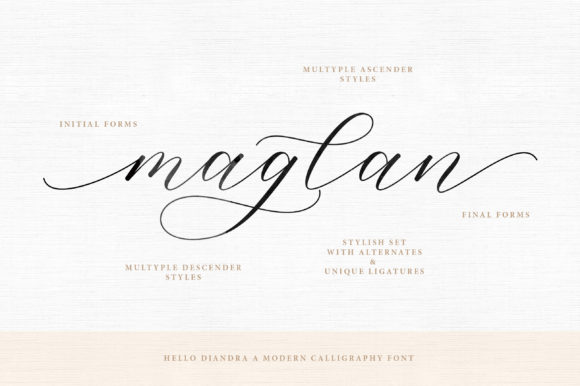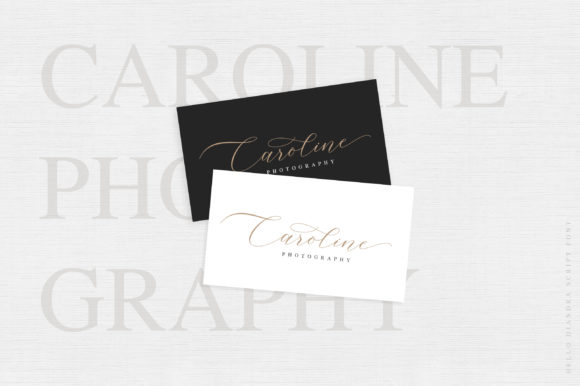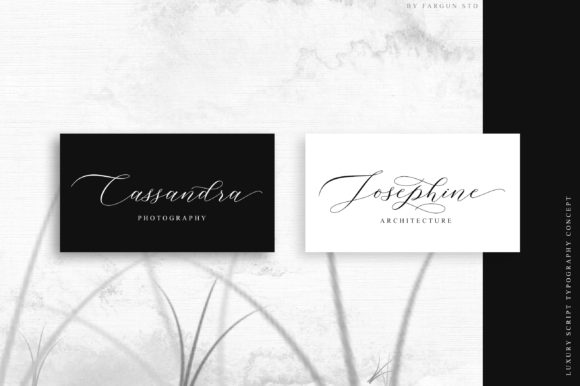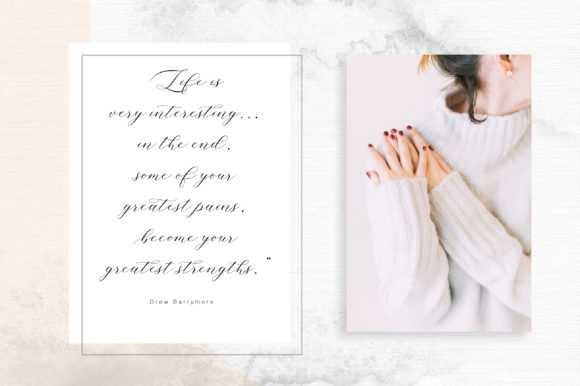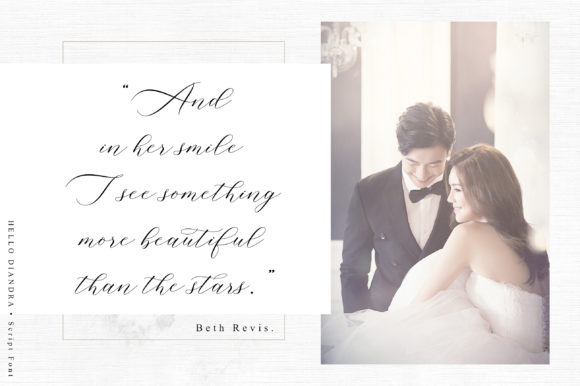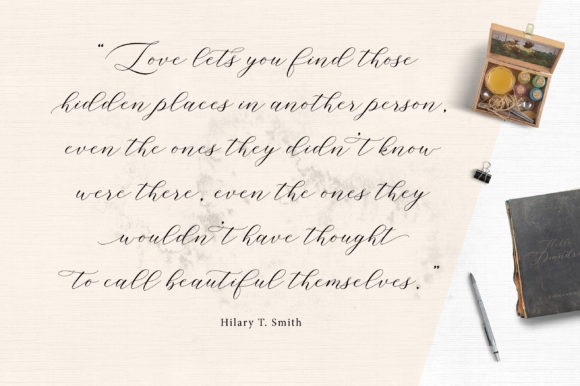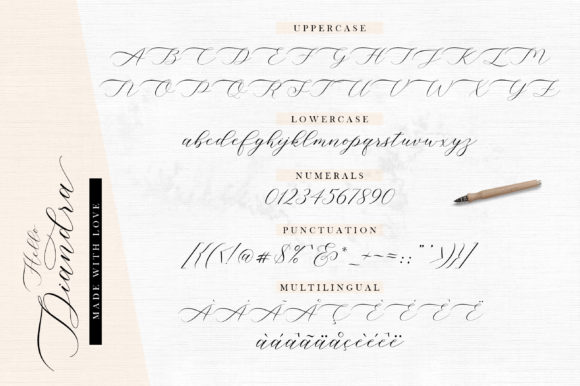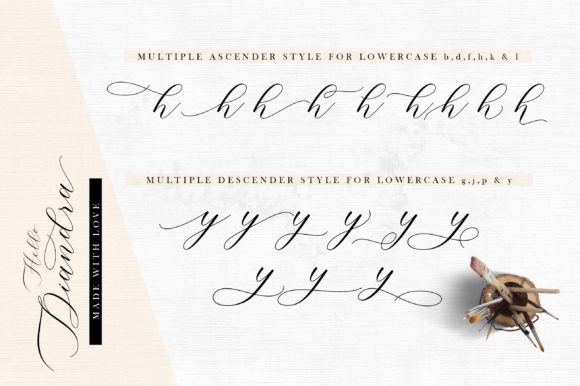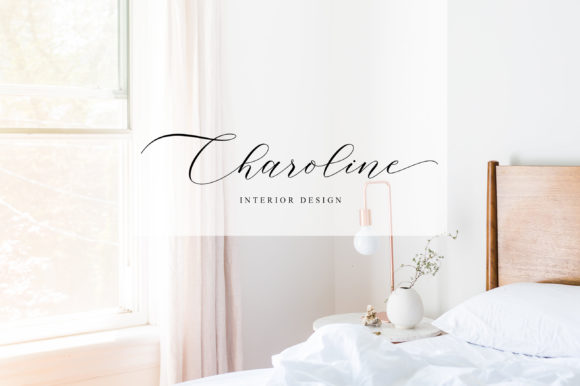
Hello Diandra Font
About Hello Diandra Font
Hello Diandra delivers a stunning font experience with its bold swashes and smooth curves. It will deliver any message with confidence and style.